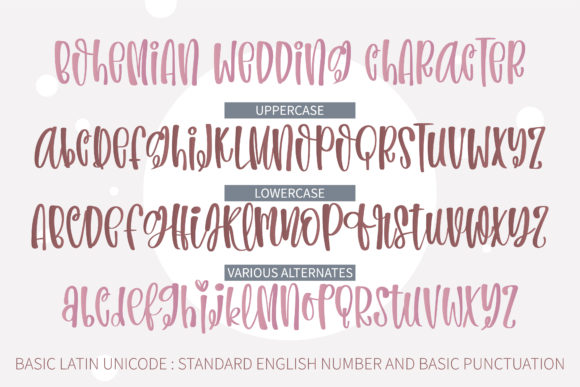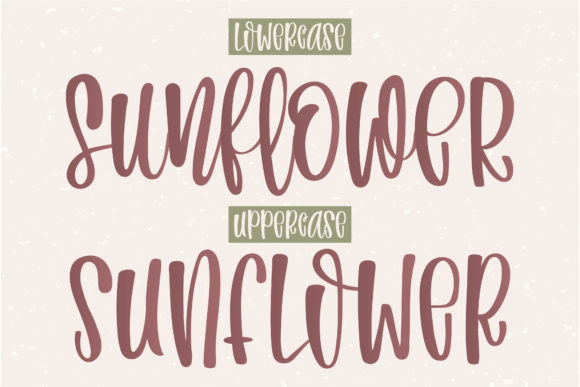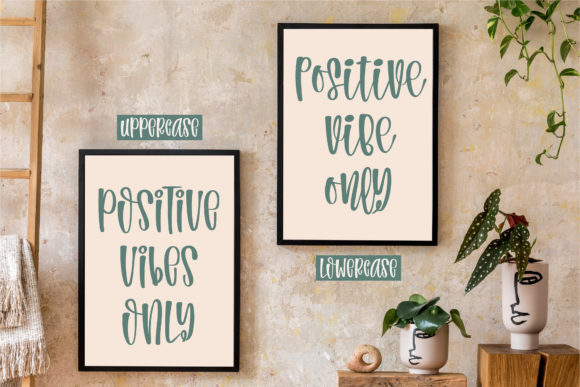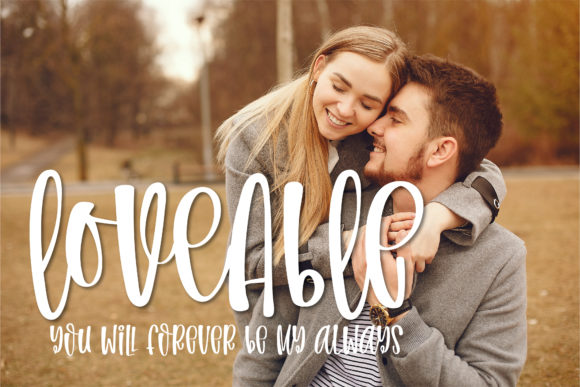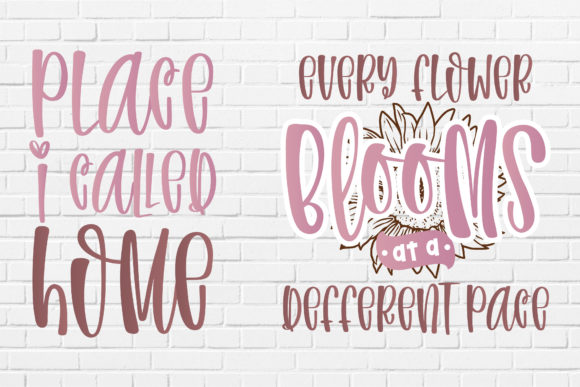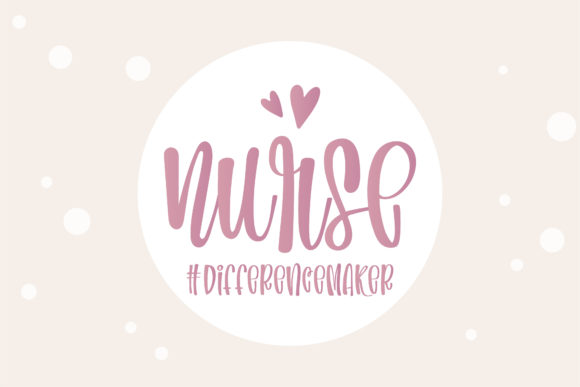
Introduction to Bohemian Wedding Font
Bohemian Wedding is a cool, friendly, and informal handwritten font, that can be used for all chalkboard quotes or teaching material.
Its authentic look and feel will add a personal and realistic feel to your designs Bohemian Wedding is PUA encoded which means you can access all of the glyphs and swashes with ease.